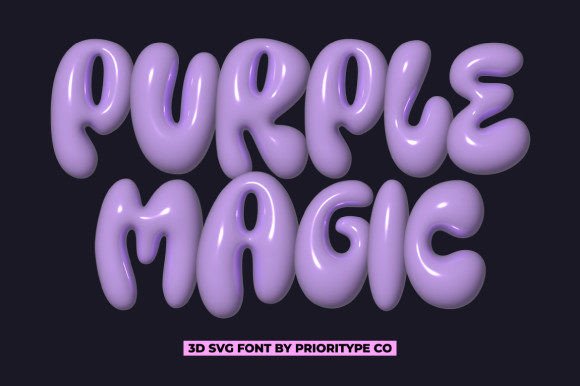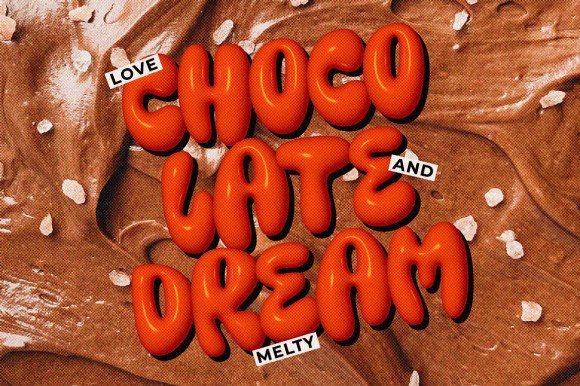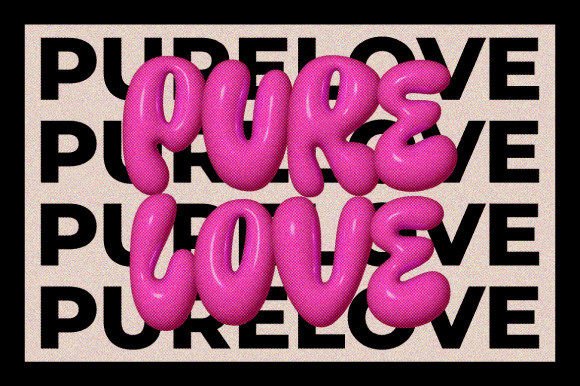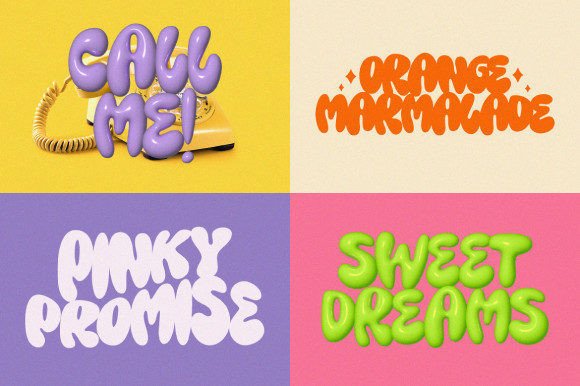
Purple Magic Font
About the Purple Magic Font
From logos to headlines, the Purple Magic Font is the perfect choice for making a lasting impression. Purple Magic – 3D SVG Font
Hand-drawn chubby font with 2 styles namely (3d svg and regular). It is perfect for contemporary designs. Great for poster designs, social media posts, logos, etc.
Purple Magic’s playful, hand-drawn aesthetic makes it ideal for headlines, short-form text in branding materials, and eye-catching social media graphics. Its three-dimensional effect adds visual interest to posters and packaging, particularly for products targeting a younger or more whimsical demographic. However, avoid using it for body copy or lengthy text; its unique characteristics can quickly become overwhelming and hinder readability.
The chunky, expressive nature of Purple Magic pairs well with clean sans-serif fonts like Open Sans or Lato for balance. For a more sophisticated look, consider a classic serif like Garamond or a slightly more geometric sans-serif such as Montserrat. Avoid pairing it with other highly decorative or overly stylized fonts.
Purple Magic exudes a fun, contemporary energy, best suited for brands emphasizing creativity, youthfulness, and a lighthearted approach. Projects focusing on children’s products, entertainment, or food and beverage brands would find this font particularly effective.
Purple Magic Font Usage Examples
Purple Magic Font Example